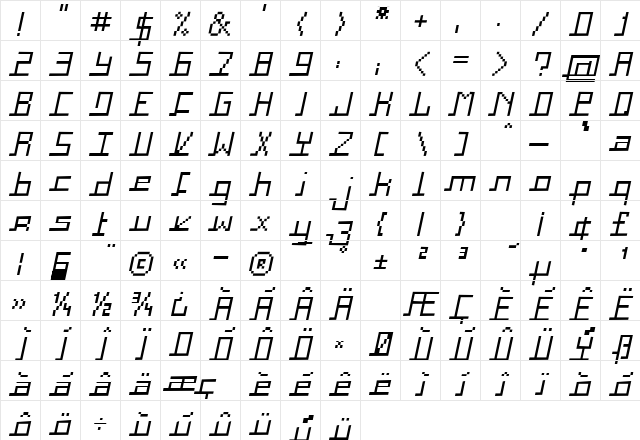
Complete Square Italic glyph index. Displaying only characters natively supported by Square Italic font.
Square is a composed and adaptable typeface that performs quietly and consistently across a wide range of design contexts. The slanted form adds forward momentum and visual energy.